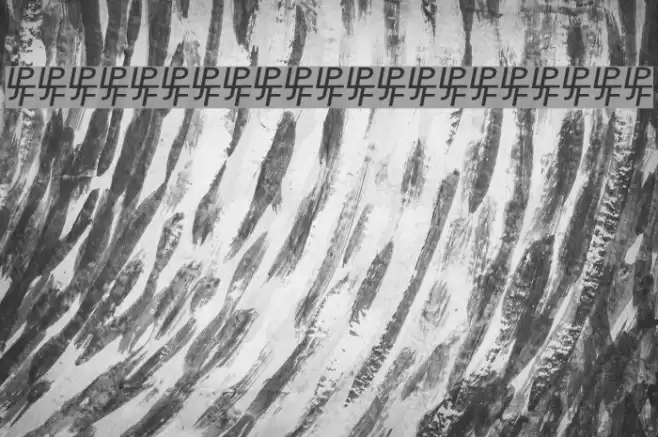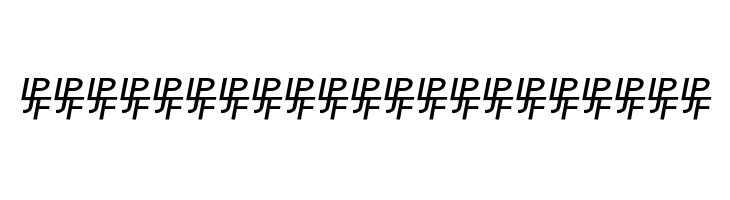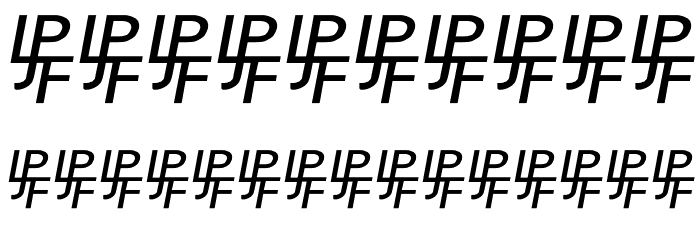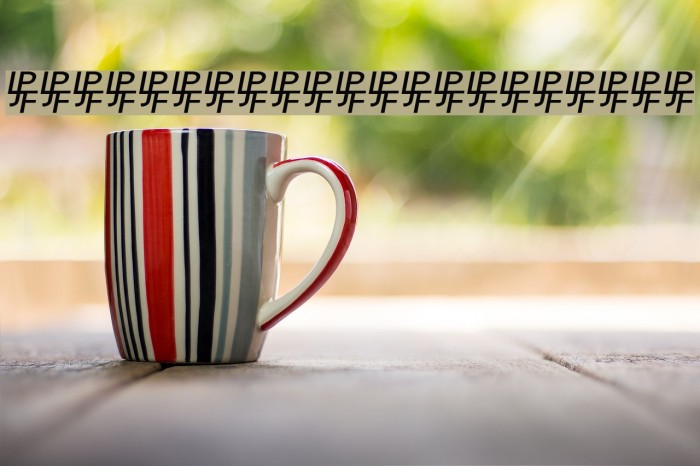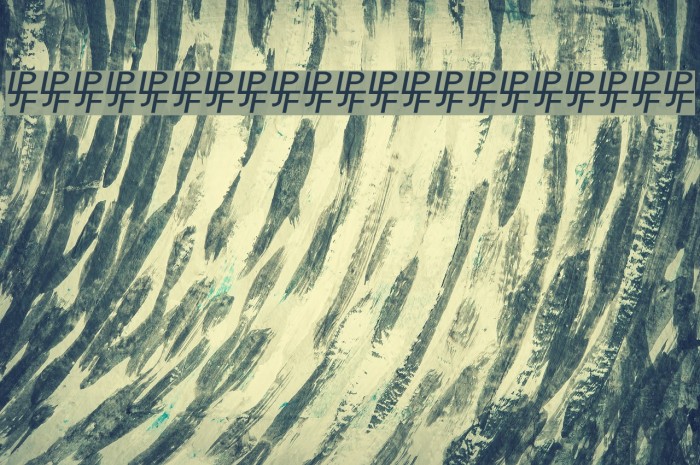
Birmingham Sans Serif Font
Birmingham Sans Serif Description
This design features a highly stylized and repetitive pattern that does not represent a traditional font. The elements are abstract and decorative, lacking the typical characteristics of letters or numbers. The design consists of repeated, interconnected shapes that create a visually striking pattern, but it does not include recognizable typographic characters. This pattern might be used for decorative purposes rather than for conveying textual information.
Abstract pattern with repetitive, interconnected shapes from Uncategorized fonts.
- Proposed Projects: Ideal for decorative backgrounds, textile designs, or abstract art pieces.
- Overall Style: Abstract, Decorative
- Use Case: Decorative purposes, not suitable for text.